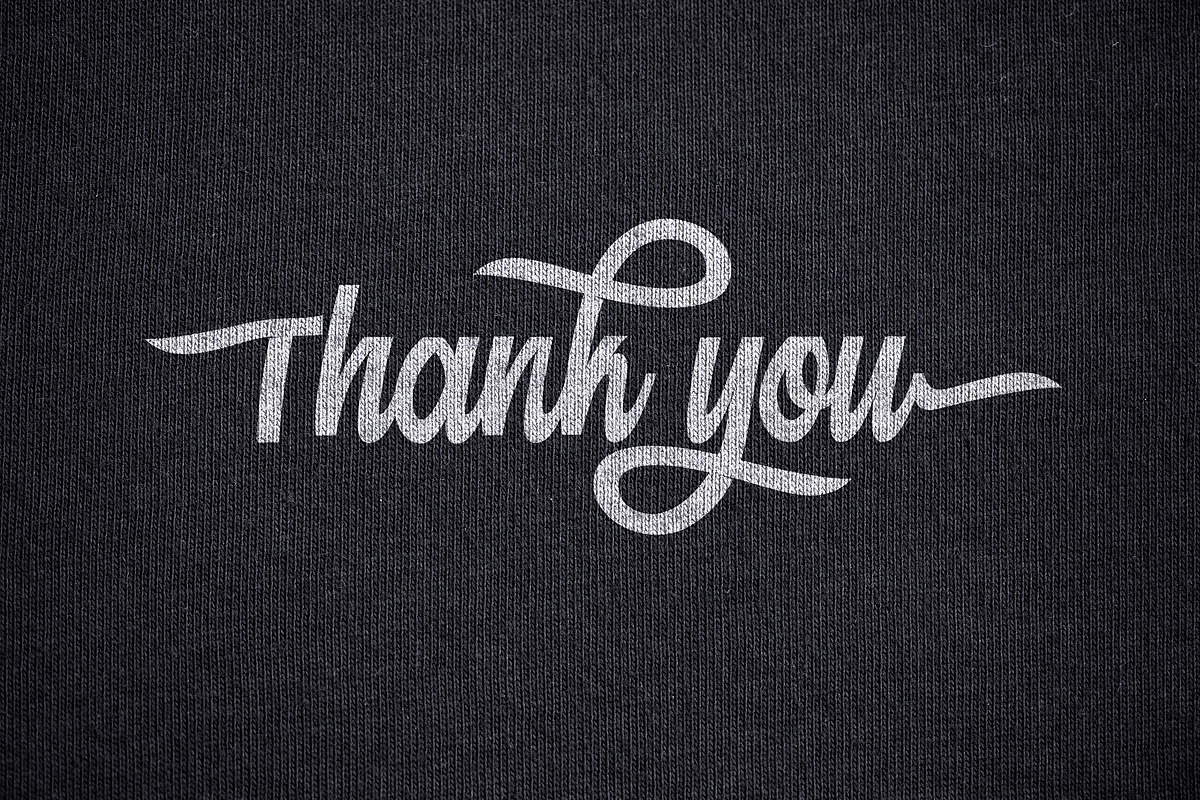
Mainstream Script
Mainstream Script is modern handlettering font, create with a very robust writing variation, suitable for branding, logotype and various other design purposes. This font provides a variety of swash variations, perfect for those of you who love experiment in designing. get 12 free tribal animal graphics, in this product making it easier for you to design t-shirts, logos, and other branding.
Mainstream Script features 400+ glyphs including initial and terminal letters, alternates, ligatures and multiple language support